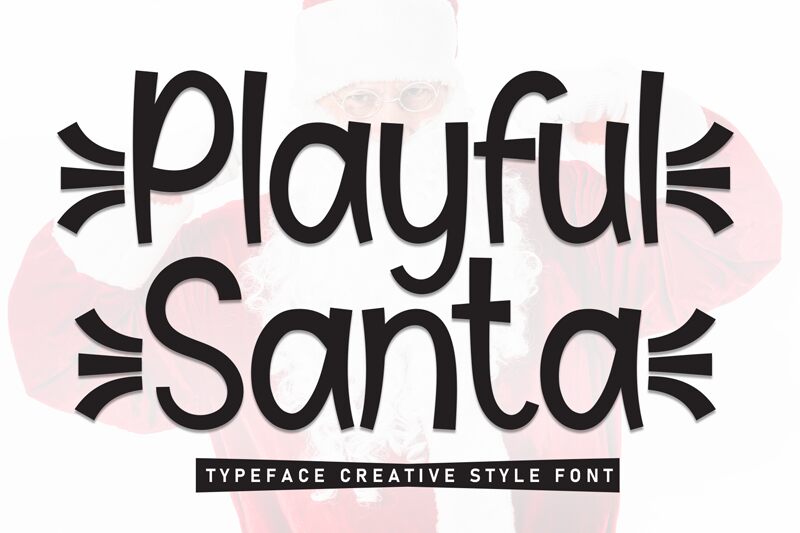
Playful Santa
Playful Santa font is a cartoon display typeface designed by Scratchones. This friendly, casual, and relaxed font conveys approachable vibes with each character. It makes for an outstanding addition to projects that need some whimsical and contemporary typography while sending the right message across.
Incorporate Playful Santa into logo design, branding materials, packaging, greetings posters, invitations, books for kids and their covers. Other possible use-case scenarios include songs covers, social media posts such as Instagram and Facebook stories or captions.